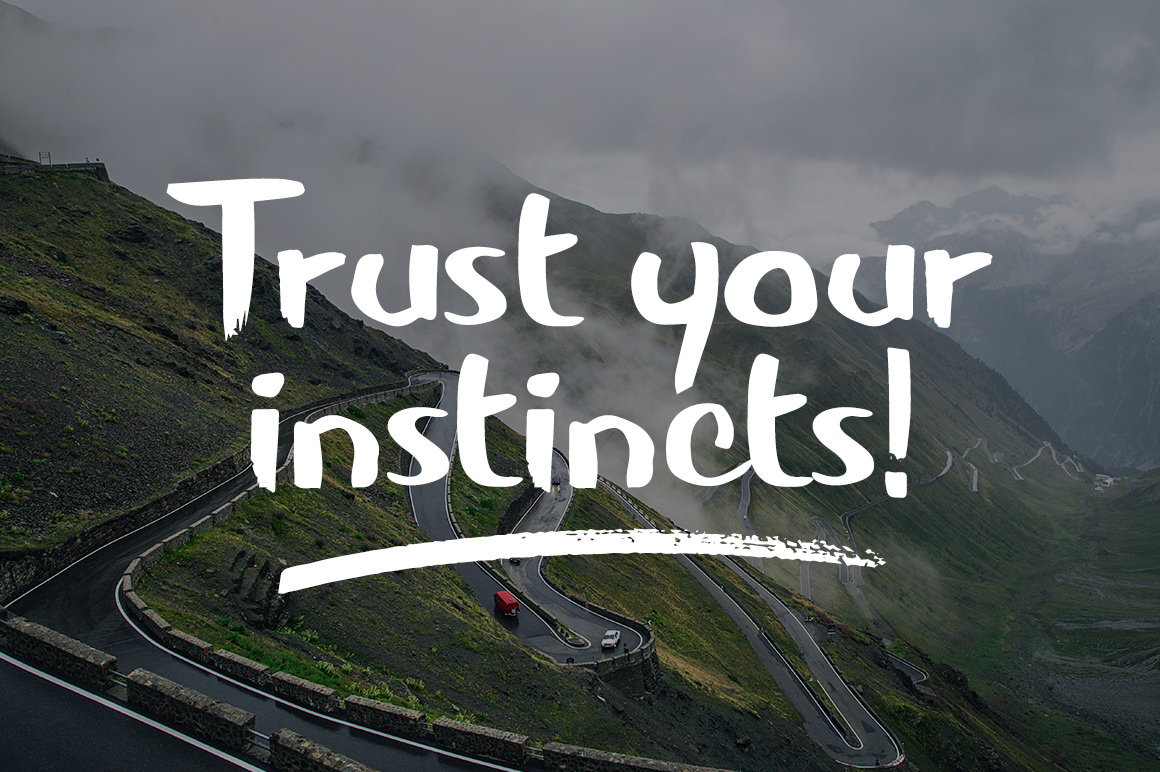
HandBrushed comes as two font files, one for the font and one for the swashes. It’s a brush based font that comes in a sans serif style. It comes with letters in uppercase and lowercase, numbers and glyphs.
The main story behind this font is that it was actually designed with a brush! It took around 60-70 A4 papers, a black thick brush and a couple cups of coffee! The Handbrushed font is fully my “sans serif handwriting” and I am really glad to be able to share it with you!